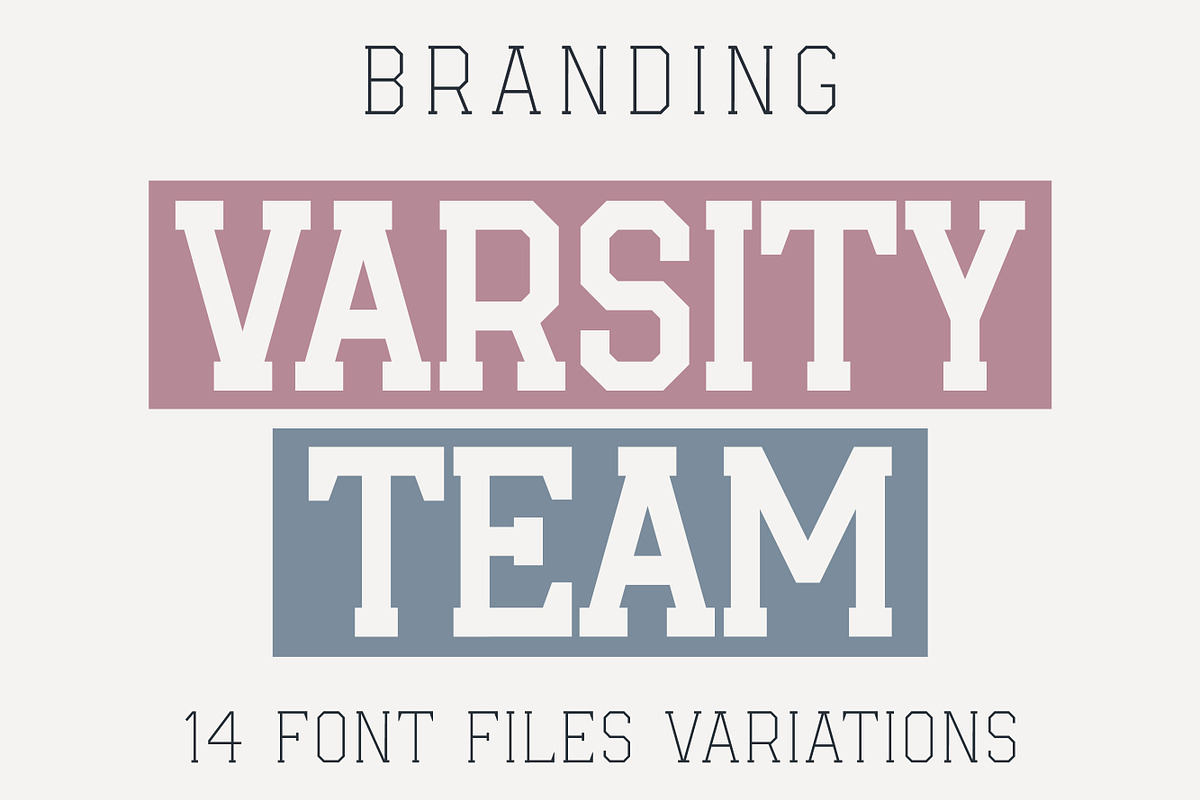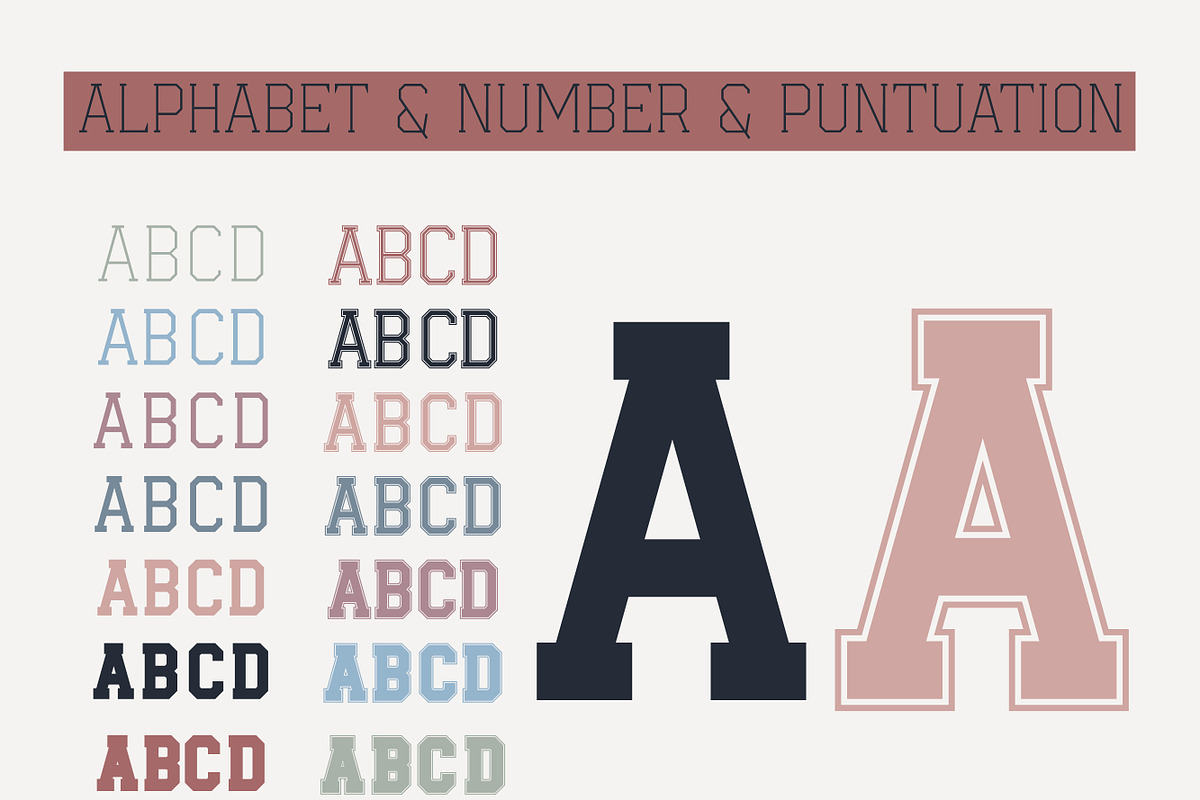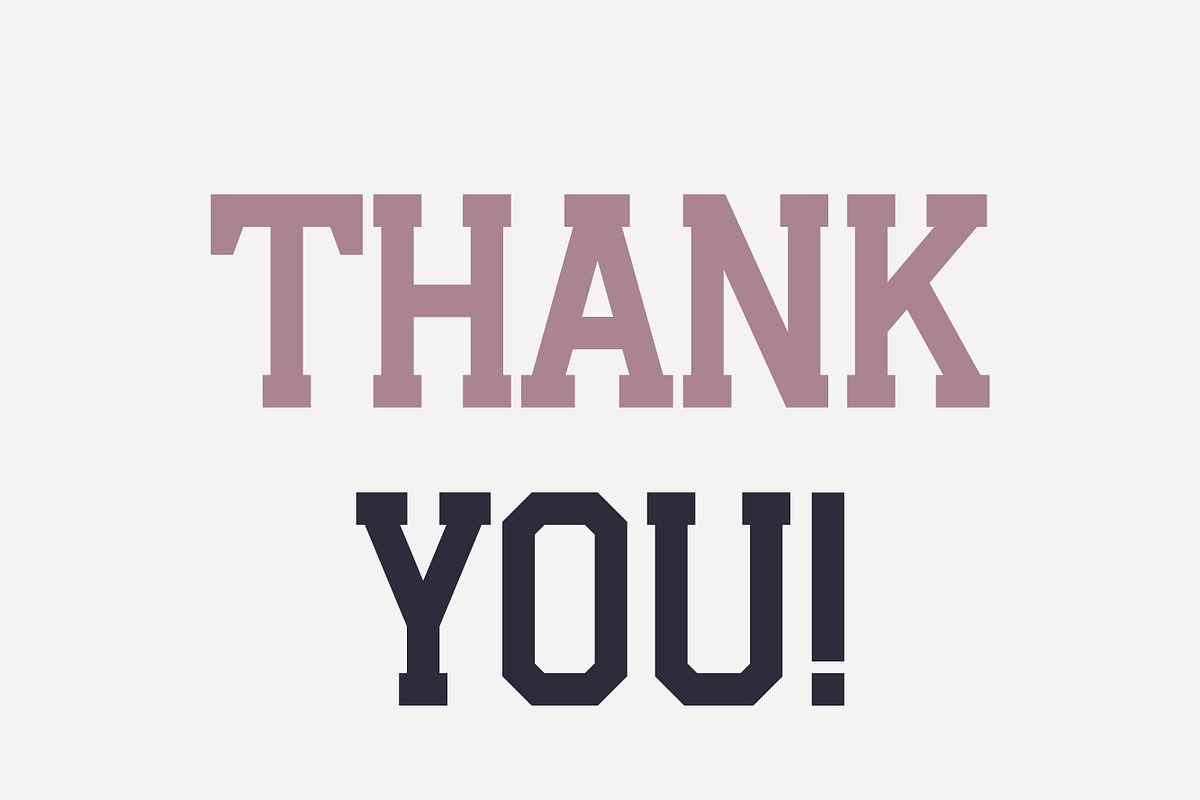
Varsity Team - College Font Bundle
This font can be used for sports, Grunge, Mugs, T-shirts, College, University, and Any Craft Idea.
Versatile and playful Imaginary font is perfect for Cricut crafts, logos, branding, SVGs, greeting cards, procreate, shirts, posters, social media, planner prints, and any other creative project.
Add a touch of classic varsity style to your projects with Varsity Team!